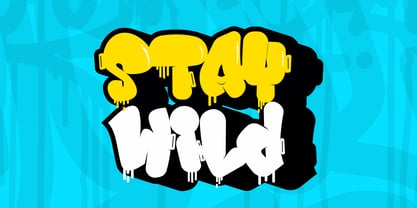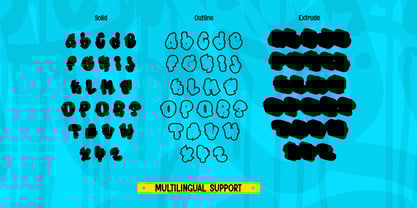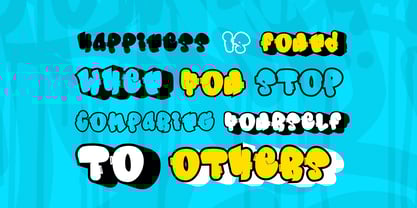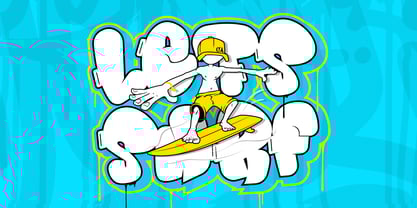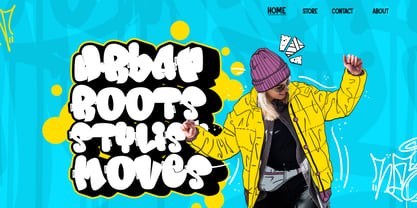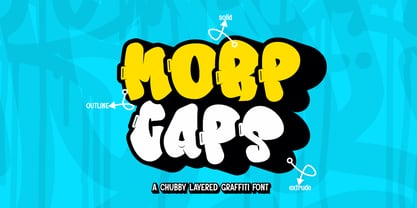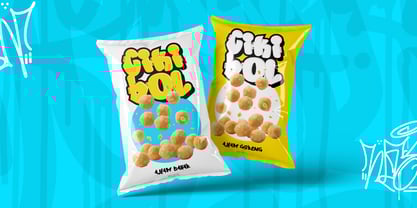
Morp Caps Extrude
by Sipanji21
The Morp Caps Extrude Font Family was designed by Sipanji and published by Sipanji21. Morp Caps Extrude contains 3 styles and family package options. More about this family
Morp Caps is a chubby and bold 3D layered graffiti font that brings a fun and energetic street-style vibe to your designs. With its three distinct styles—Solid, Outline, and Extrude, this font allows for creative layering and dynamic effects, making your text pop with depth and dimension.
Perfect for streetwear branding, hip-hop posters, urban artwork, album covers, stickers, gaming graphics, and more, Morp Caps combines graffiti culture with a playful yet powerful look. Whether you're aiming for a bold statement or a vibrant street aesthetic, this font delivers an eye-catching and rebellious style